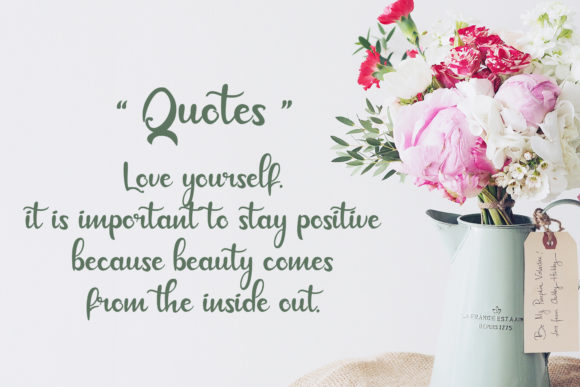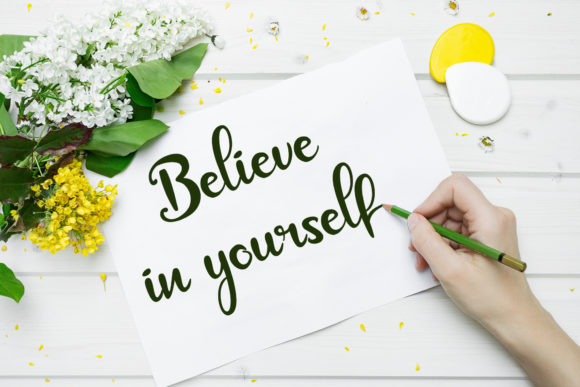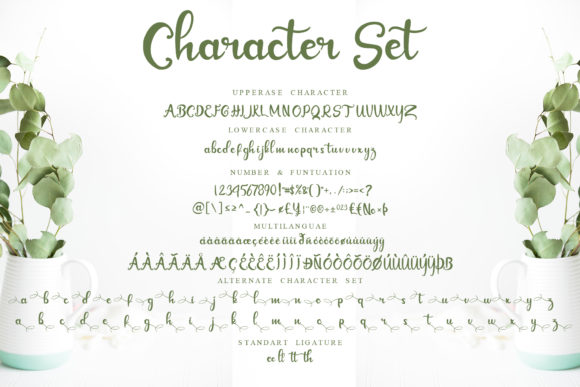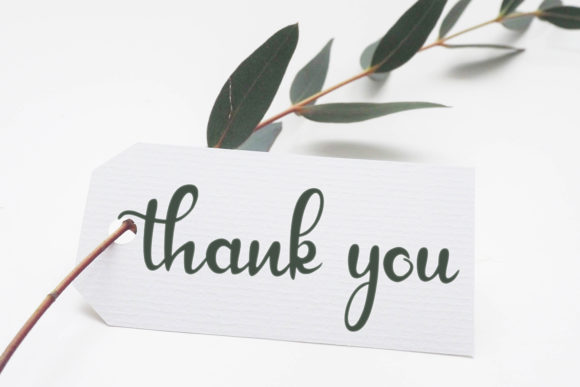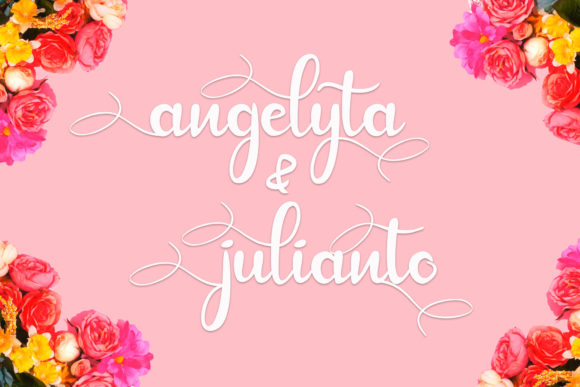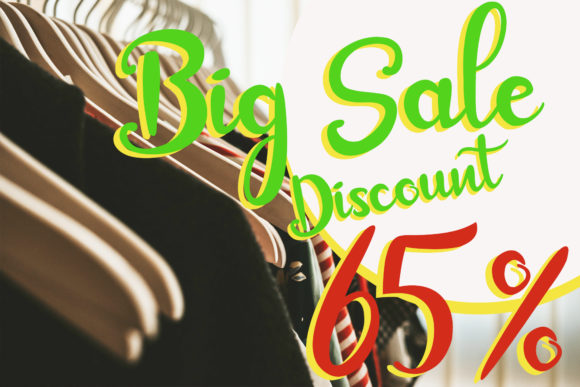
Introducing Angelyta Font: The Sweet and Cool Handwritten Font with Amazing Swashes
Are you a designer or crafter looking for a font that can add a romantic spark to your design projects? Look no further than Angelyta Font! This incredibly sweet and cool handwritten font is perfect for creating beautiful and eye-catching designs that will capture the hearts of your audience. With its amazing swashes, Angelyta Font is sure to take your designs to the next level.
What Makes Angelyta Font So Special?
Angelyta Font is a unique and charming handwritten font that is designed to add a touch of elegance and sophistication to any design project. Its sweet and cool style makes it perfect for a wide range of design applications, from romantic wedding invitations and beautiful branding designs to stunning posters and eye-catching social media graphics.
One of the standout features of Angelyta Font is its amazing swashes. These beautiful swashes add a touch of flair and sophistication to any design, making it perfect for designers and crafters who want to create unique and eye-catching designs. With Angelyta Font, you can add a romantic spark to your designs and make them truly unforgettable.
Angelyta Font is perfect for designers and crafters who want to create beautiful and unique designs. Whether you’re working on a branding project, creating social media graphics, or designing wedding invitations, Angelyta Font is the perfect choice. Its sweet and cool style makes it easy to pair with other fonts, and its amazing swashes add a touch of elegance and sophistication to any design.
Designers will love the versatility of Angelyta Font, which can be used for a wide range of design applications. From logos and branding designs to posters and social media graphics, Angelyta Font is the perfect choice for any design project. Crafters will also love the font’s ability to add a personal touch to their designs, making them truly unique and eye-catching.
Key Features of Angelyta Font
• Incredibly sweet and cool handwritten font
• Amazing swashes add a touch of elegance and sophistication to any design
• Perfect for romantic wedding invitations, beautiful branding designs, stunning posters, and eye-catching social media graphics
• Easy to pair with other fonts
• Versatile and can be used for a wide range of design applications
Here are a few tips for using Angelyta Font in your designs:
• Use Angelyta Font as a headline font to add a touch of elegance and sophistication to your designs
• Pair Angelyta Font with other fonts to create a unique and eye-catching design
• Experiment with different swashes to add a touch of flair to your designs
• Use Angelyta Font for body text to add a personal touch to your designs